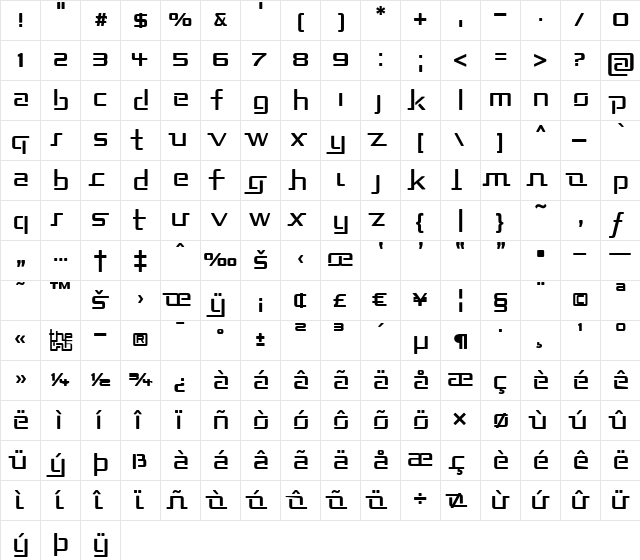
Republika II Regular Font Preview
Republika II Regular
Republika II Regular Font Details
| Designer | Apostrophe |
Design Context for Republika II Typeface
Republika II takes a measured approach to typography — its balanced proportions and neutral character make it a reliable workhorse for both digital and print work.